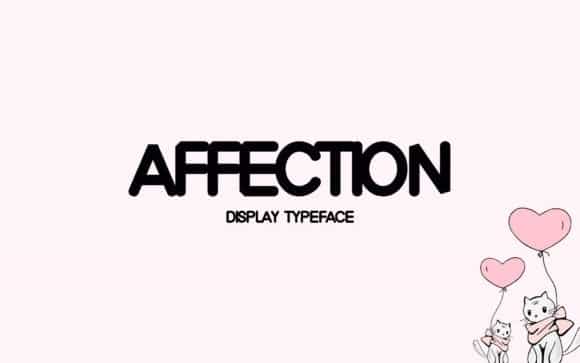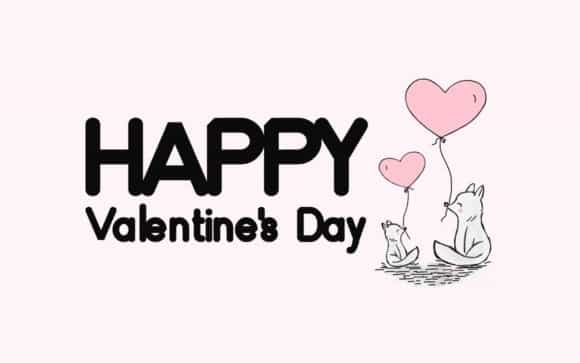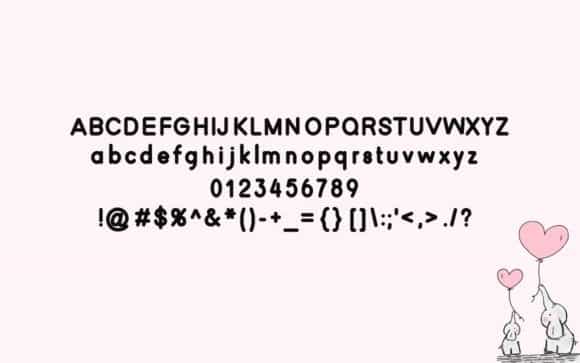
Affection Display Font
Discover Affection Display Font, part of the  Commercial  Sans Serif Display collection—a versatile and unique font perfect for adding a personal touch to your projects. Download it for free and enjoy crafting designs with style, from invitations to social media posts. This font is available exclusively for personal use, giving you the freedom to create without limits. Unlock your creativity with Affection Display Font today!
Affection is a font which looks modern and appealing. It is a great font for stationery, logos, t-shirts, paper printing design, website header and photo frame as well. It can also be used in the flyer, music cover poster image slider and other things.